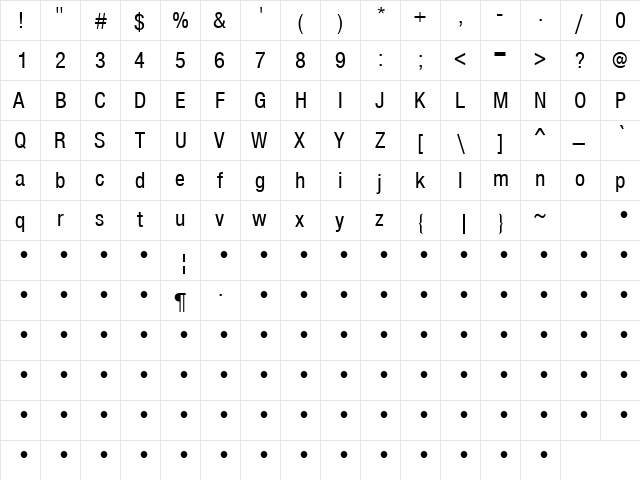
QTHelvetCnd Regular
Design Context for QTHelvetCnd Typeface
QTHelvetCnd takes a measured approach to typography — its balanced proportions and neutral character make it a reliable workhorse for both digital and print work.
Pro Tip: Use QTHelvetCnd in both headline and body roles to test its range before committing to a single application.